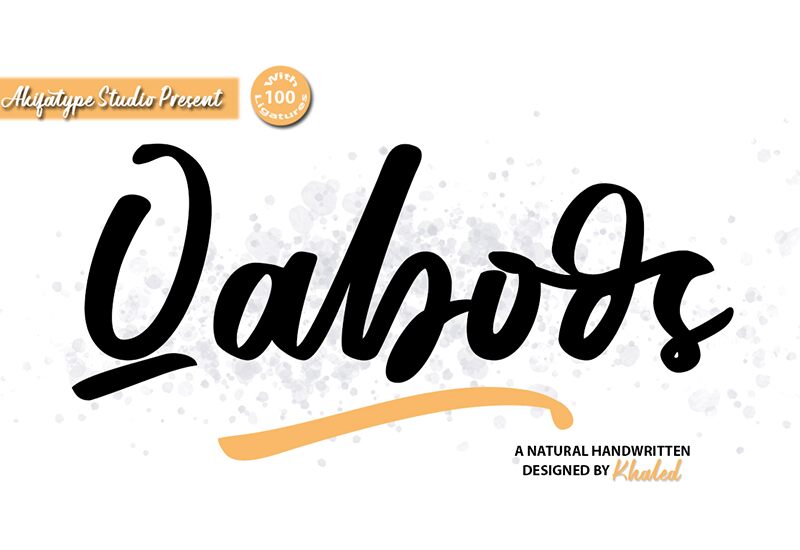
Qaboos, a captivating semi-light font designed by Akifatype Studio, brings a touch of elegance to your projects. With its handwritten marker style, this font is perfect for adding a personal and creative flair to various designs.
Whether you're working on invitations, greeting cards, or scrapbooks, Qaboos will infuse your projects with an authentic hand-drawn feel. Its delicate weight makes it suitable for headers and body text alike, enhancing readability while maintaining a unique charm.
Let Qaboos elevate your creations with its graceful strokes and versatile appeal.